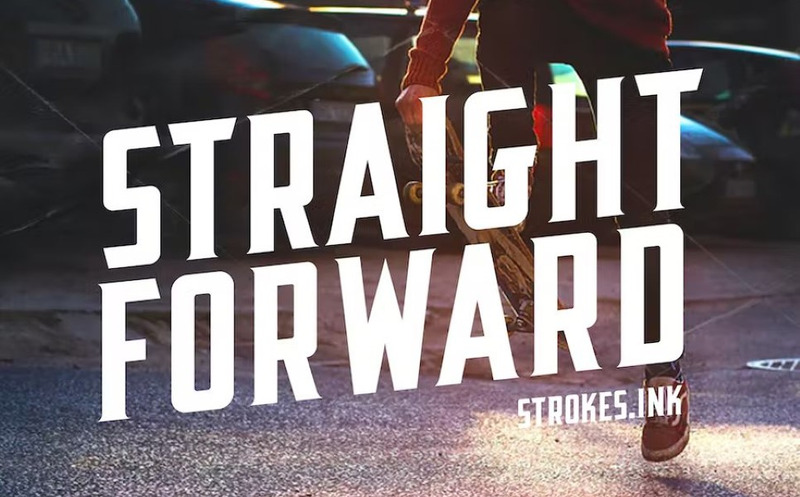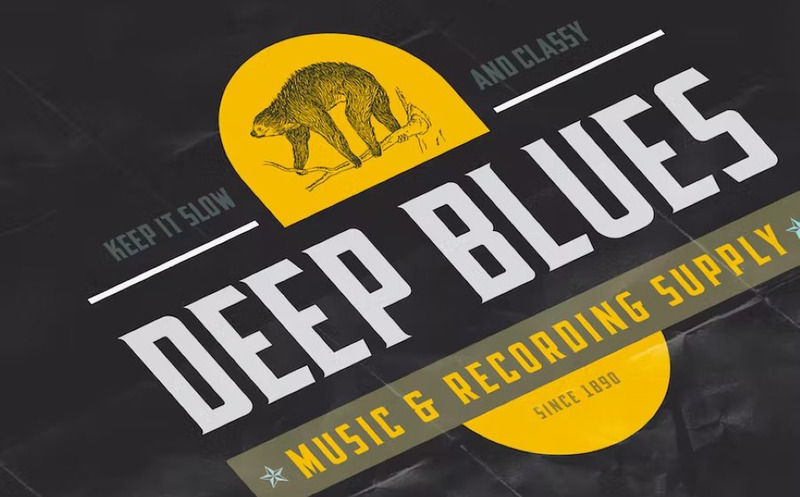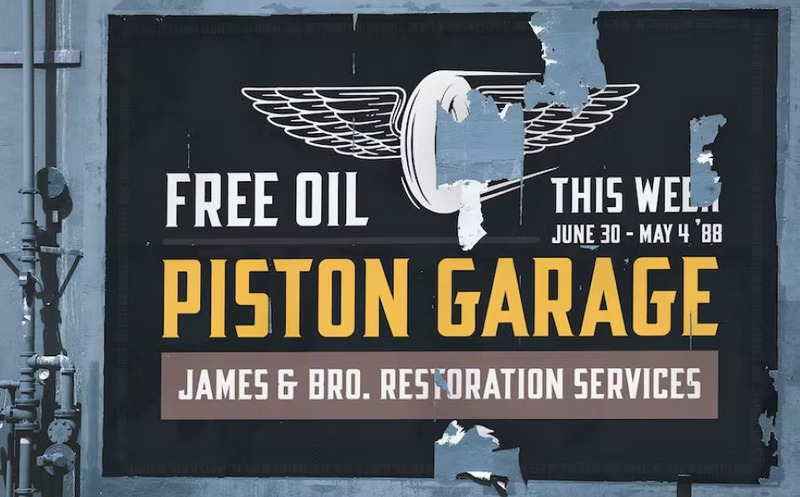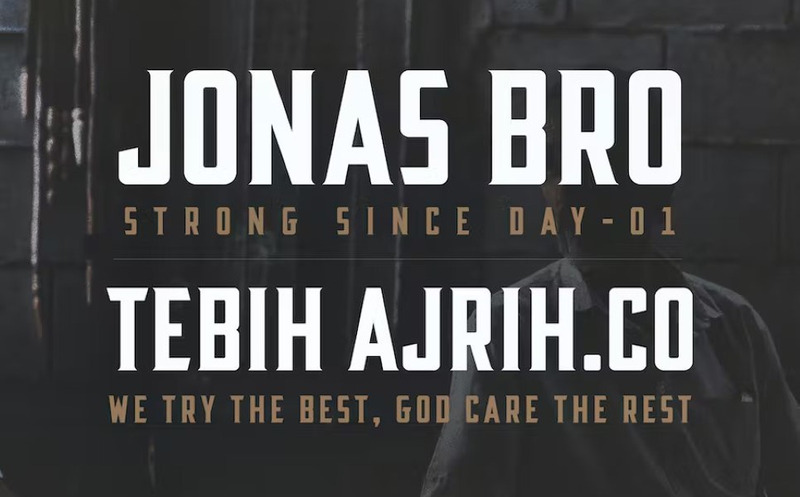
Durbank Font - Retro Industrial Style Font
Durbank Font -  Retro Industrial Style Font
A retro industrial style font for your awesome next project!. This font created for straight forward text in big display but also good and readable in smaller paragraph size. Best suitable for posters, wall sign, print titles, tshirt design, ads, and similar projects.